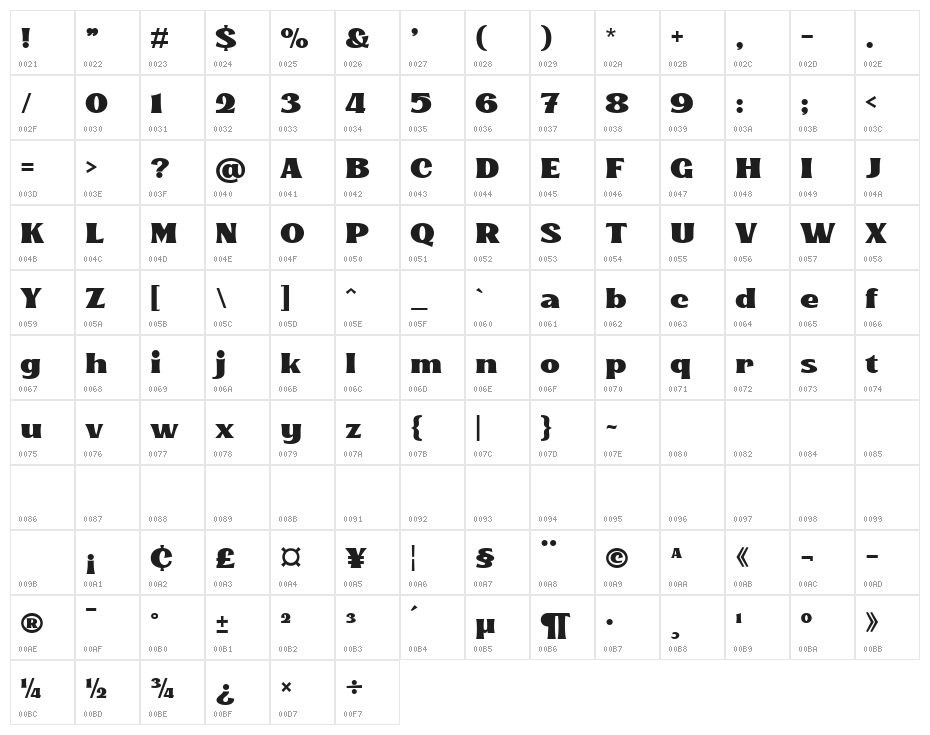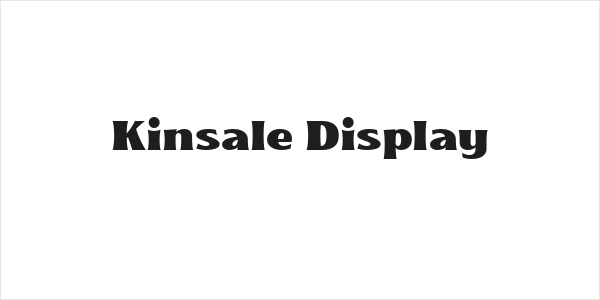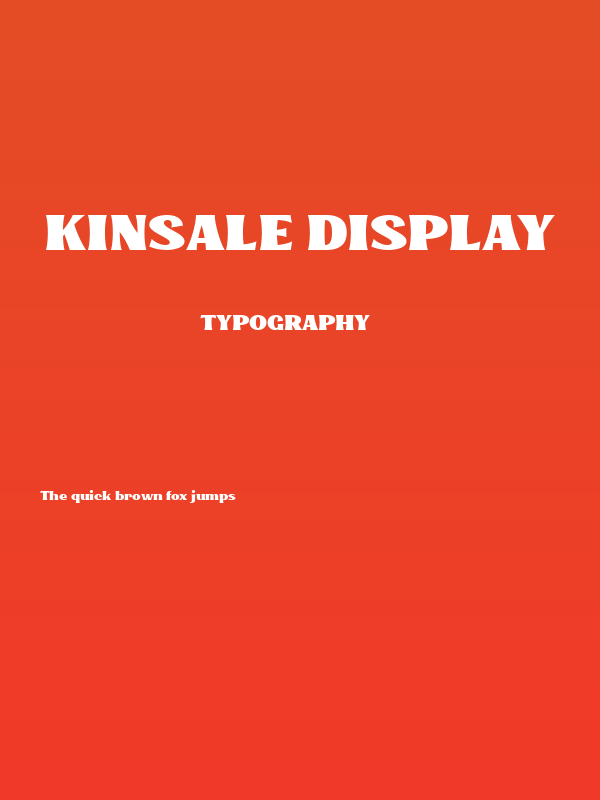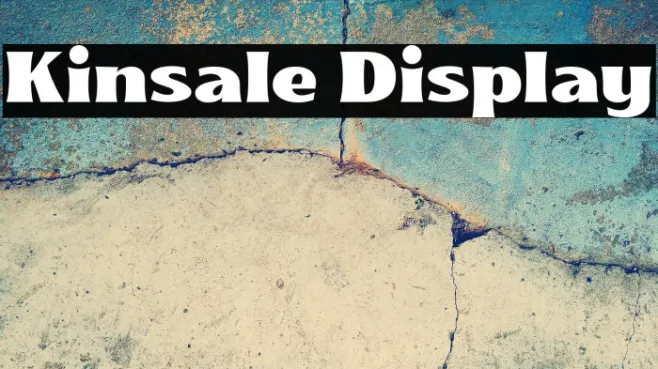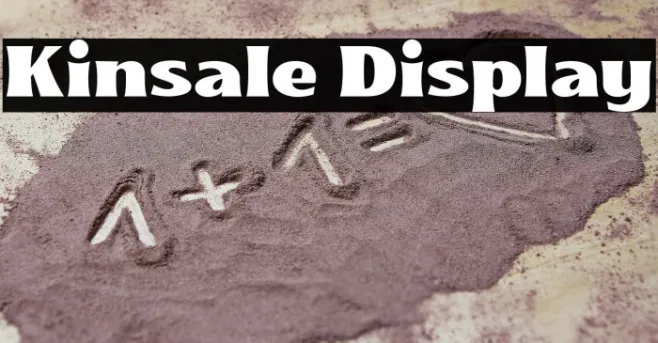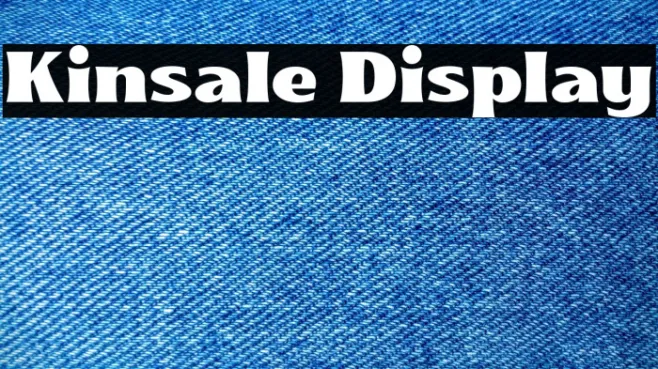
Kinsale Display Font
Kinsale Display Description
This font features bold, dramatic strokes with a strong presence, making it ideal for attention-grabbing headlines and titles. The characters are robust and slightly condensed, with a playful yet authoritative style. The uppercase letters are particularly striking, with a uniform height and width that create a cohesive look. The lowercase letters maintain the boldness of the uppercase, with rounded edges that add a touch of softness. The numerals are equally bold, ensuring they stand out in any design. Special characters are included, maintaining the same bold style, making this font versatile for various uses.